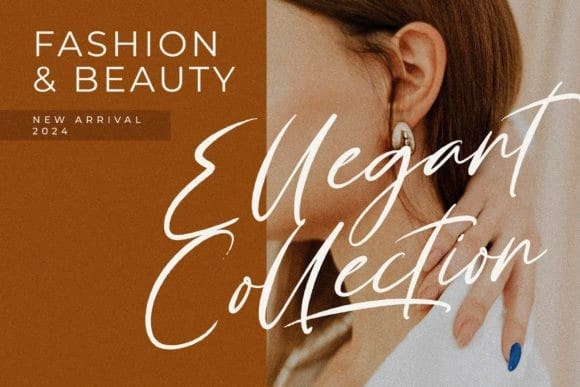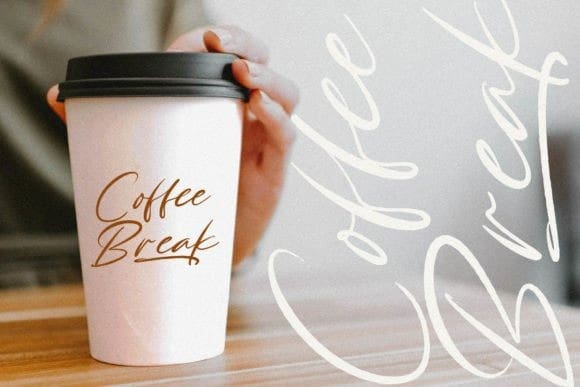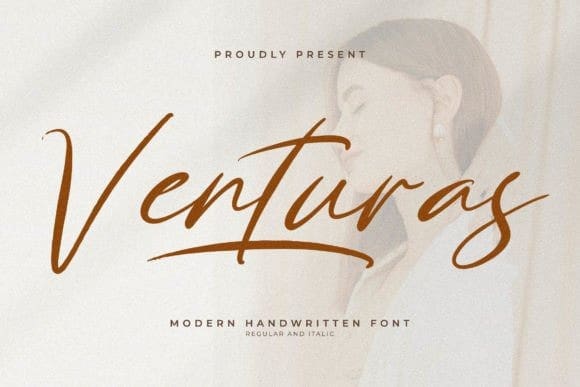
Venturas Script Font
Venturas Script Font – Modern Handwritten Font suitable for any projects such as logos, branding projects, homeware designs, product packaging, mugs, quotes, posters, shopping bags, t-shirts, book covers, name cards, invitation cards, greeting cards, labels, photography, watermark, special events, and all your other lovely projects that need a beautiful script taste.